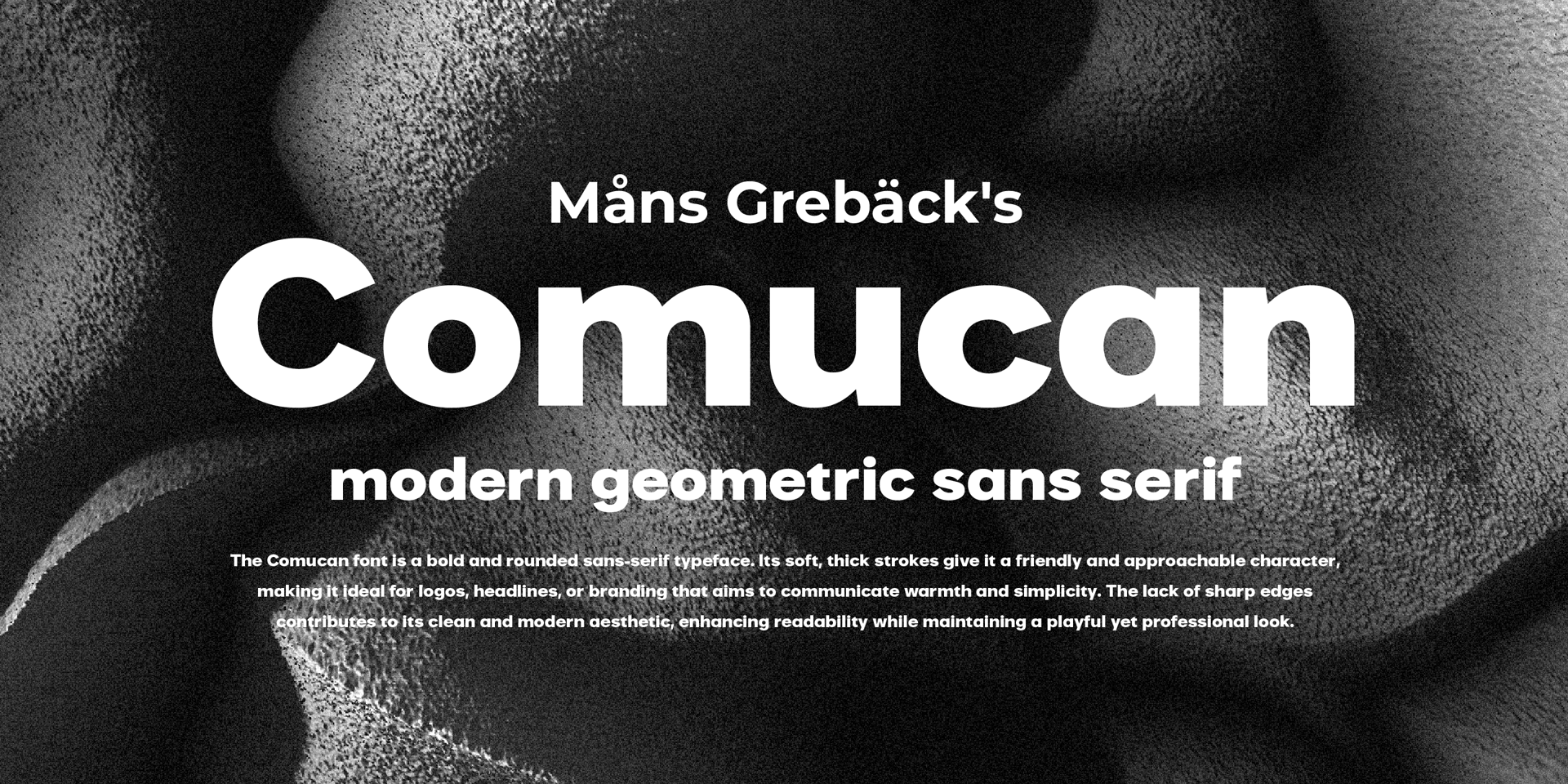
Comucan – Geometric Sans Serif Font
Comucan – Geometric Sans Serif Font is a stylish typeface that enhances visual appeal and works effortlessly in many design contexts. Comucan is a modern geometric sans serif with a bold, rounded voice. It is built on simple shapes and even rhythm, giving the letters a calm confidence that feels both contemporary and human.
The forms are soft without being vague, and sturdy without feeling heavy. Wide curves, open counters, and steady proportions make the text easy to read while keeping a friendly presence. Italics are smooth and controlled, adding movement without breaking the structure. Across weights and styles, the design stays consistent and reliable.
The font is built with advanced OpenType functionality and guaranteed top-notch quality, containing stylistic and contextual alternates, ligatures and more automatic and manual features; all to give you full control and customizability.
Comucan was designed with clarity and warmth in mind. The goal was to create a typeface that feels modern and approachable at the same time, with shapes that are straightforward but never stiff. It is a font meant to communicate clearly, without drawing attention away from the message.